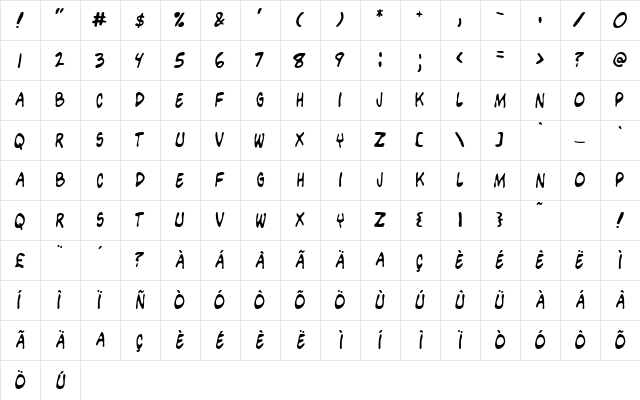
FlimFlam Regular
Design Context for FlimFlam Typeface
FlimFlam is a composed and adaptable typeface that performs quietly and consistently across a wide range of design contexts.